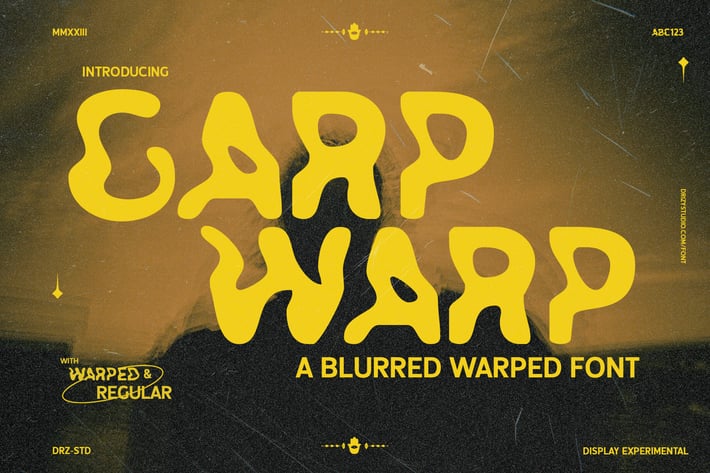
Garpwarp - Blurred Warped Font
Garpwarp – Blurred Warped Font
Garpwarp is a Unique Experimental Warped Font from Drizy Studio. Offering the one-of-a-kind look you need for your projects.
Garpwarp features:
Uppercase letters
Two typefaces:
-Regular
-Warped